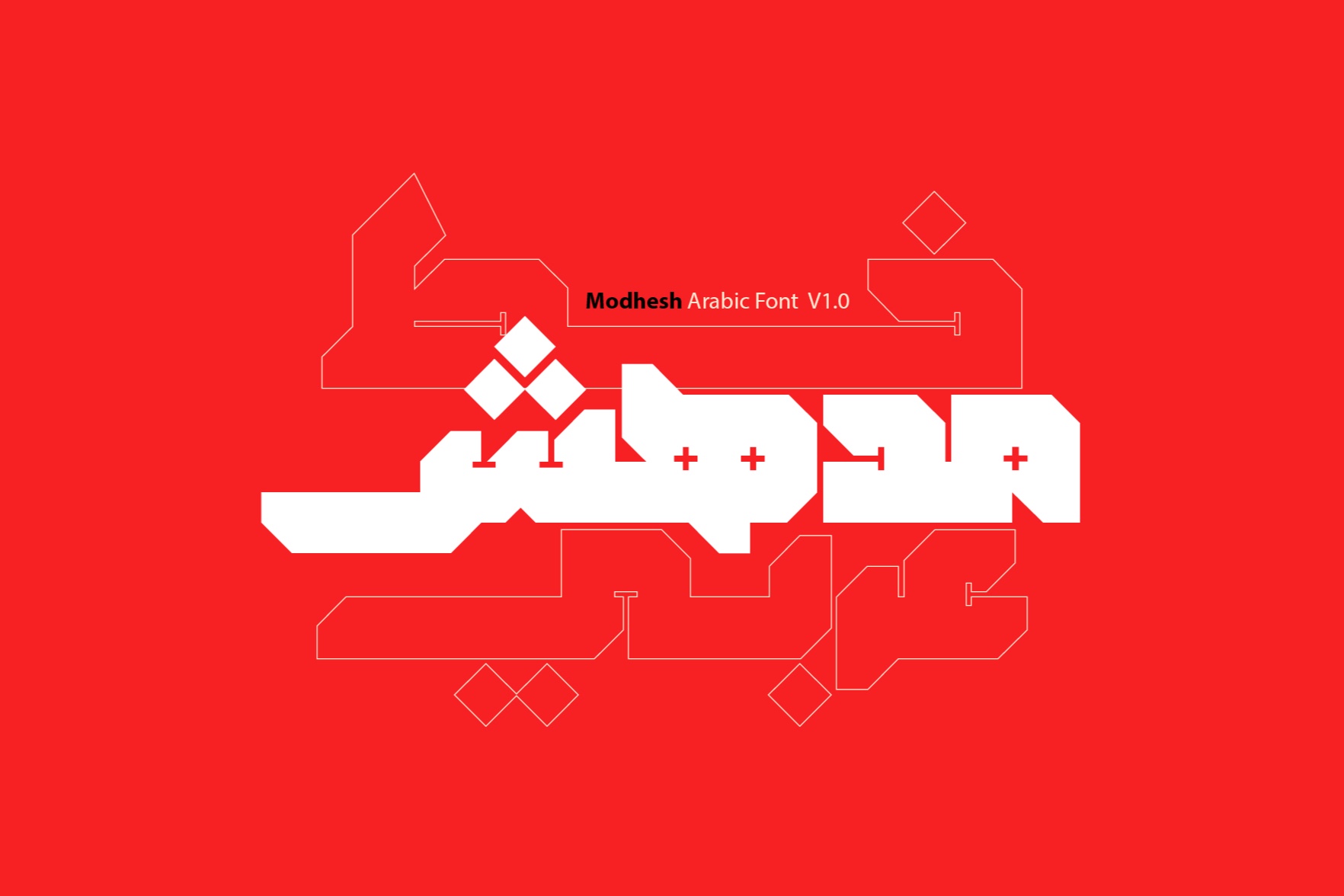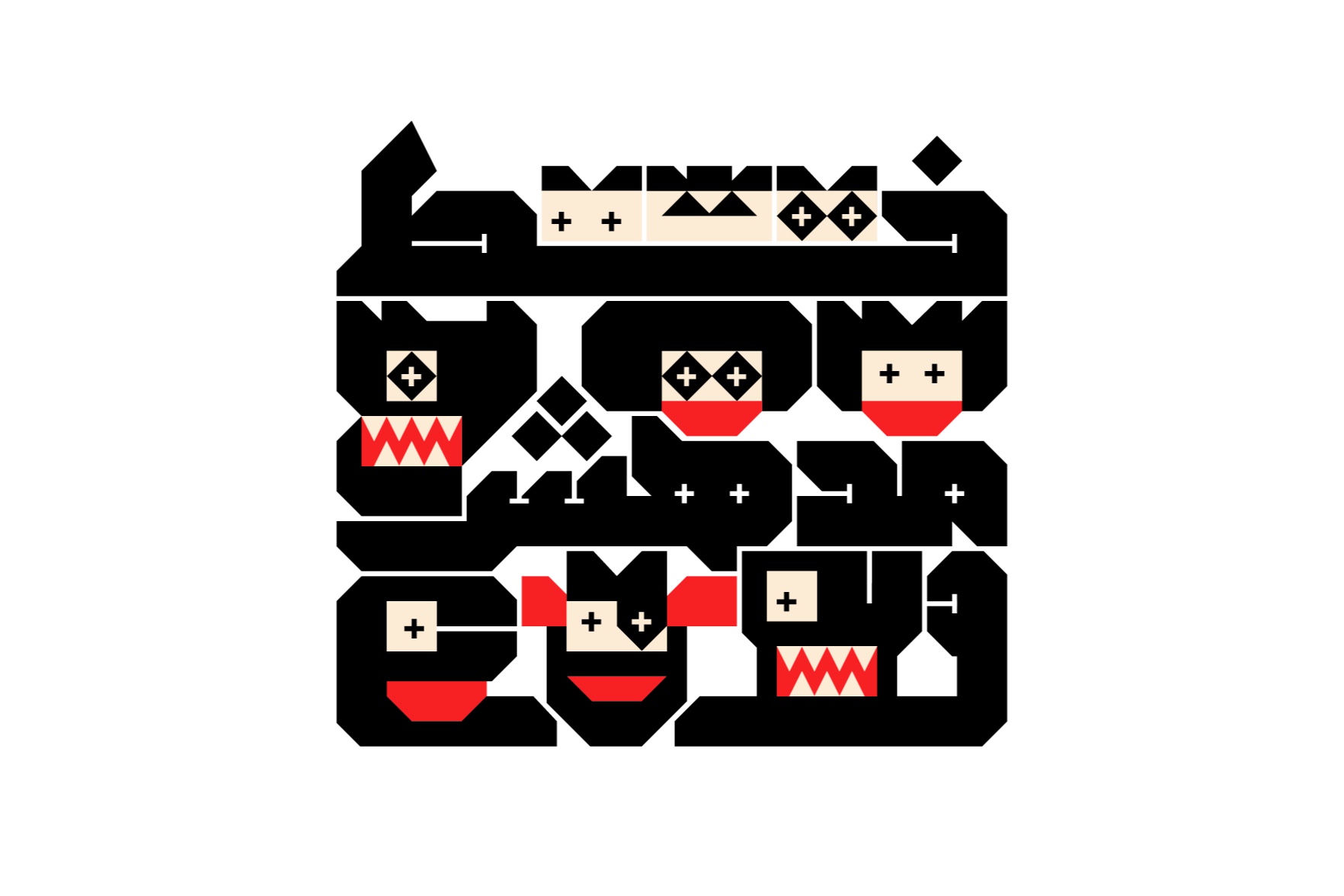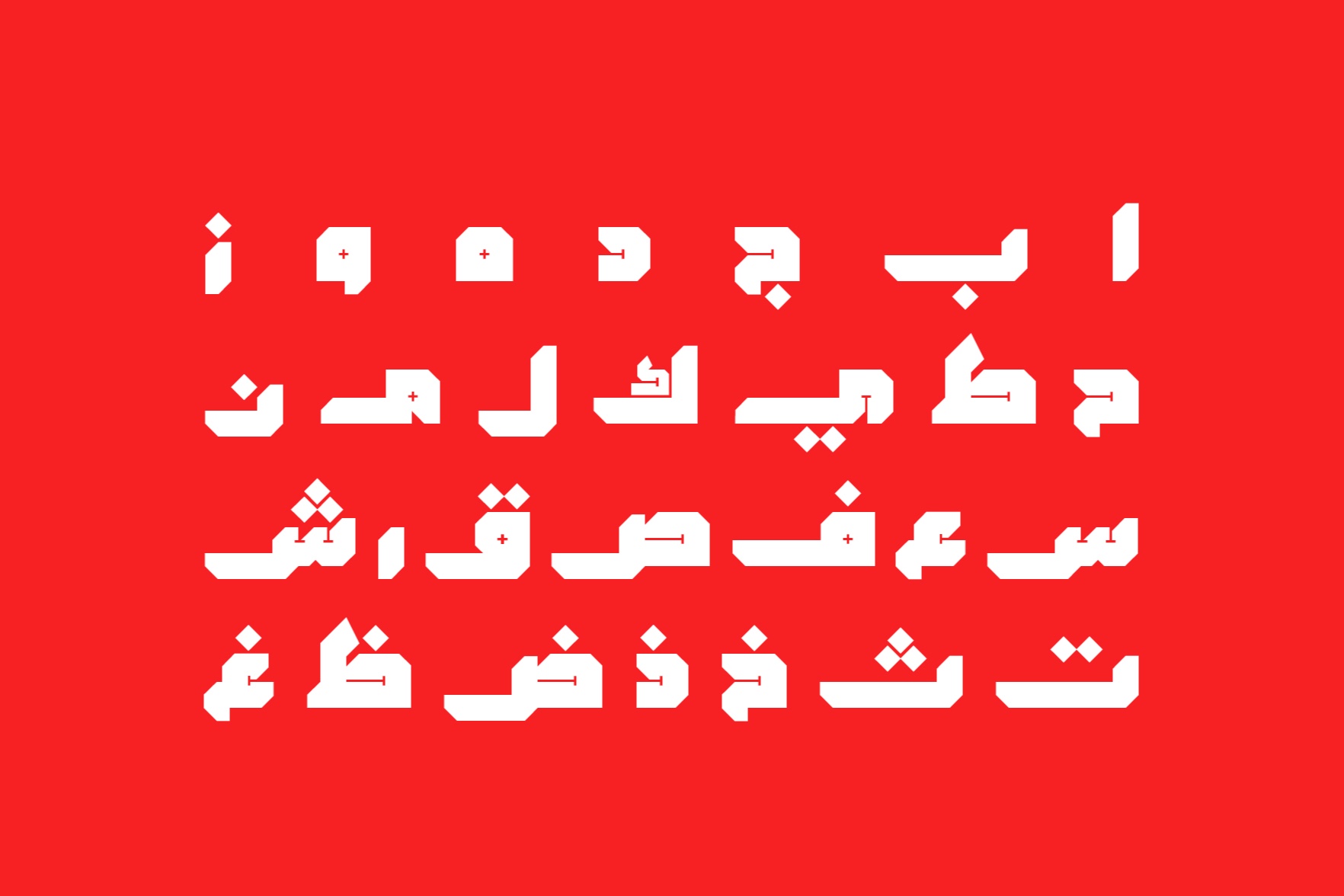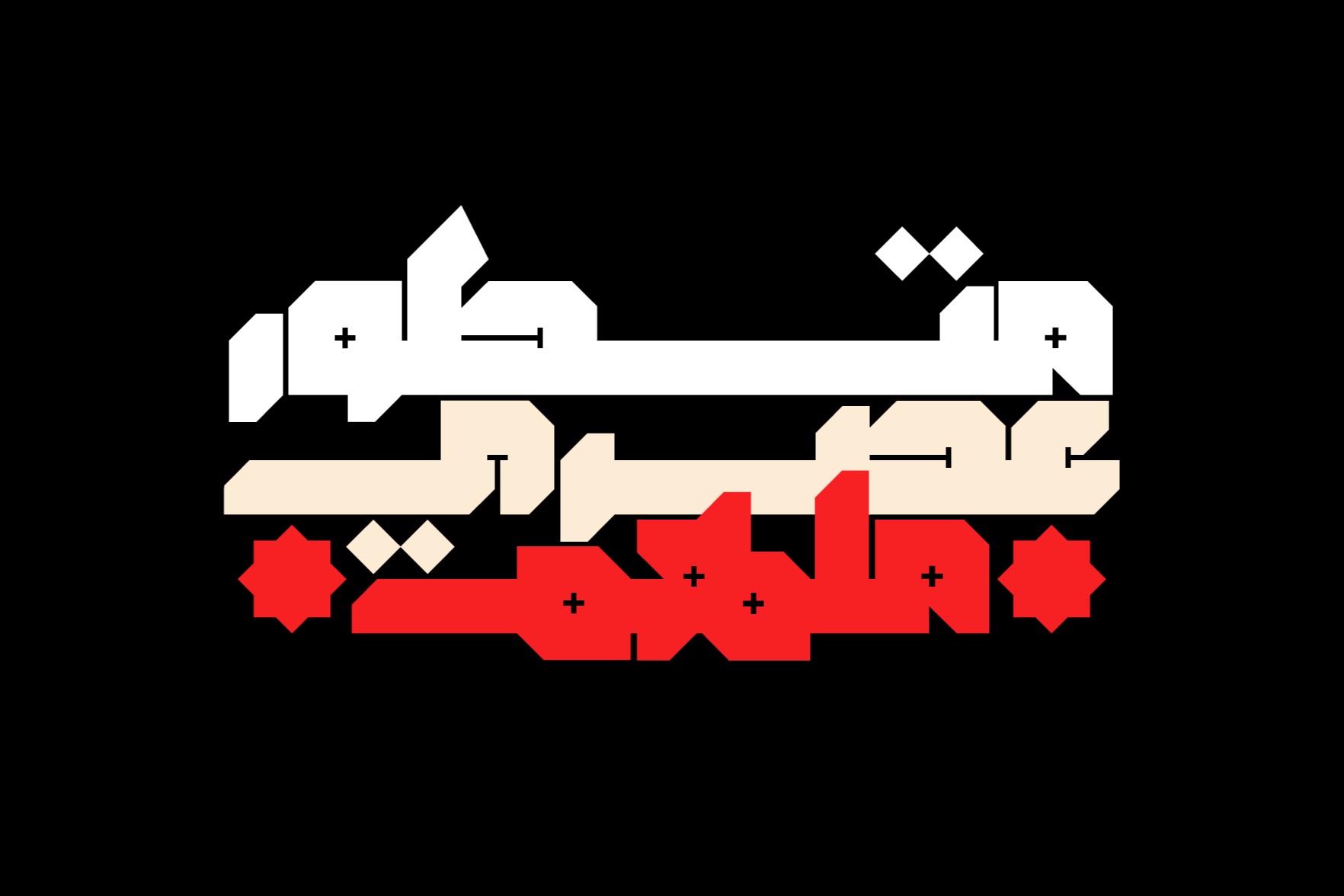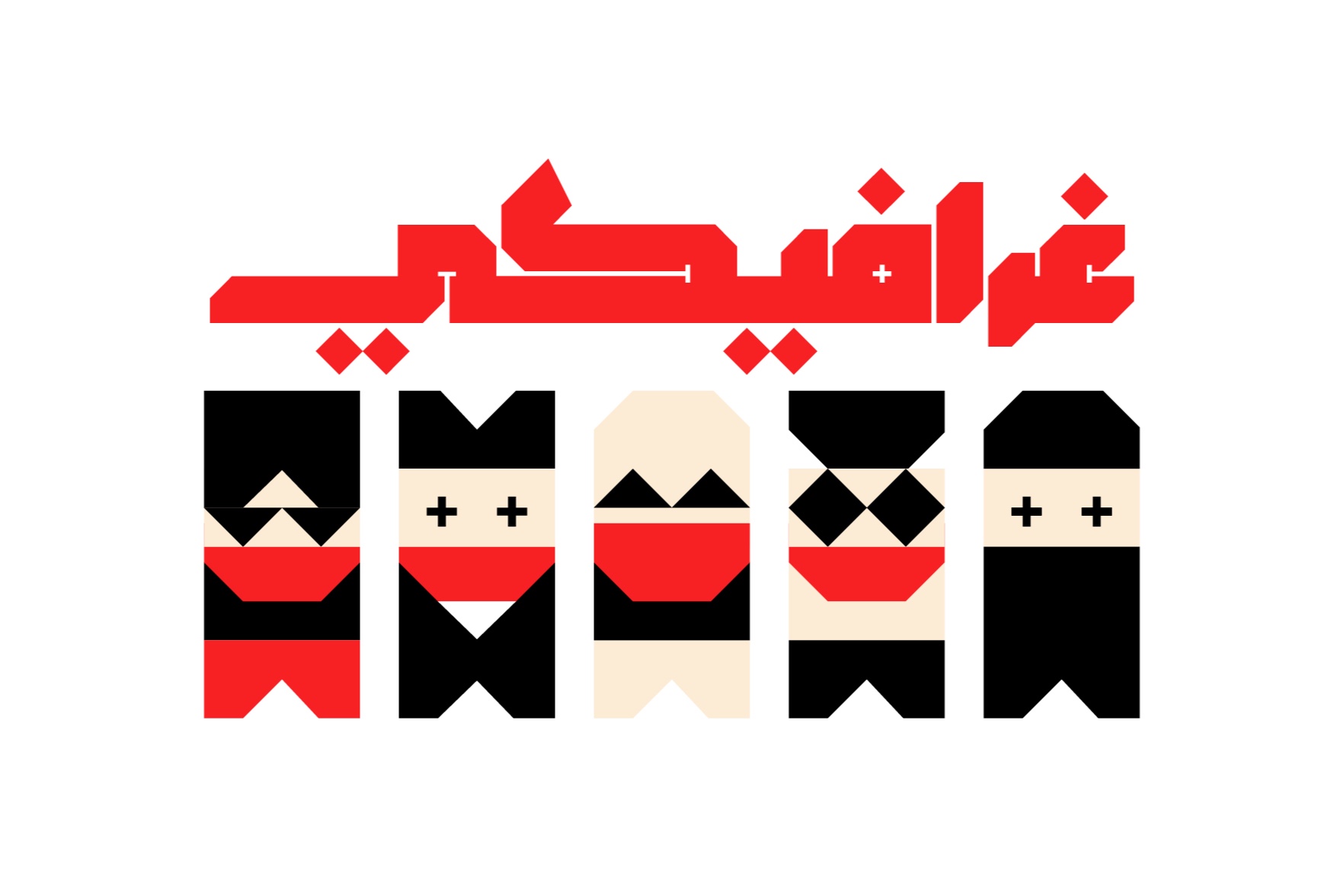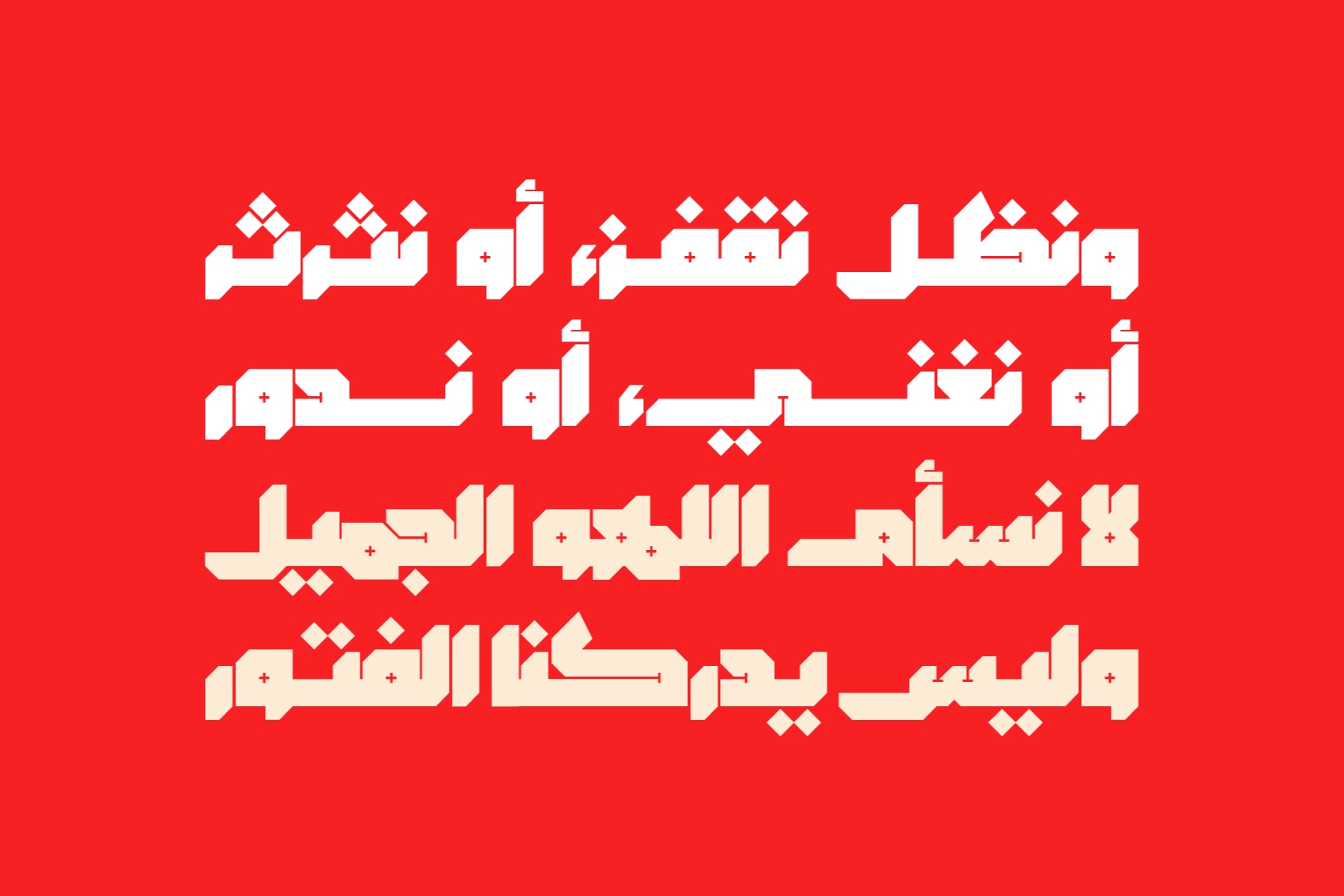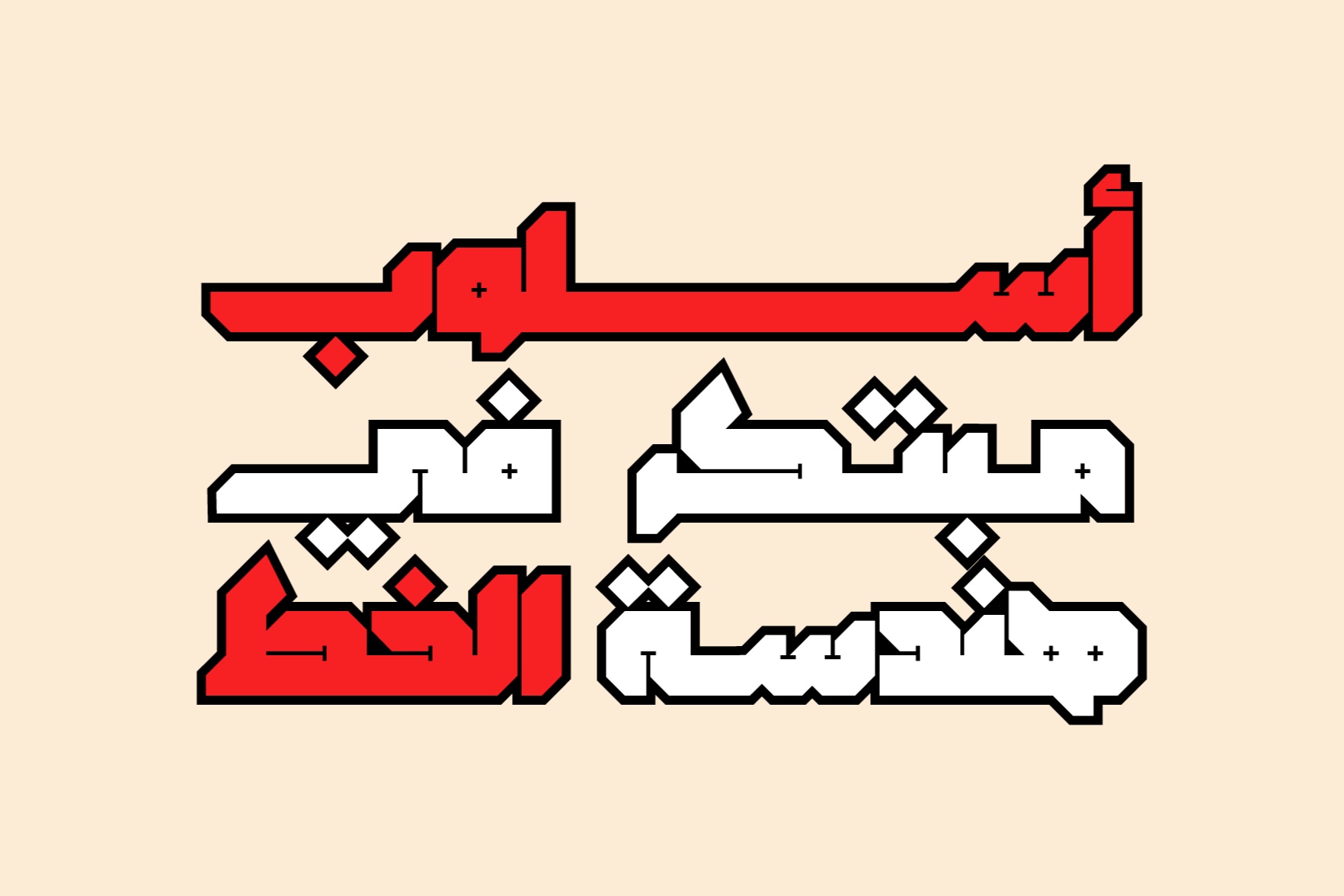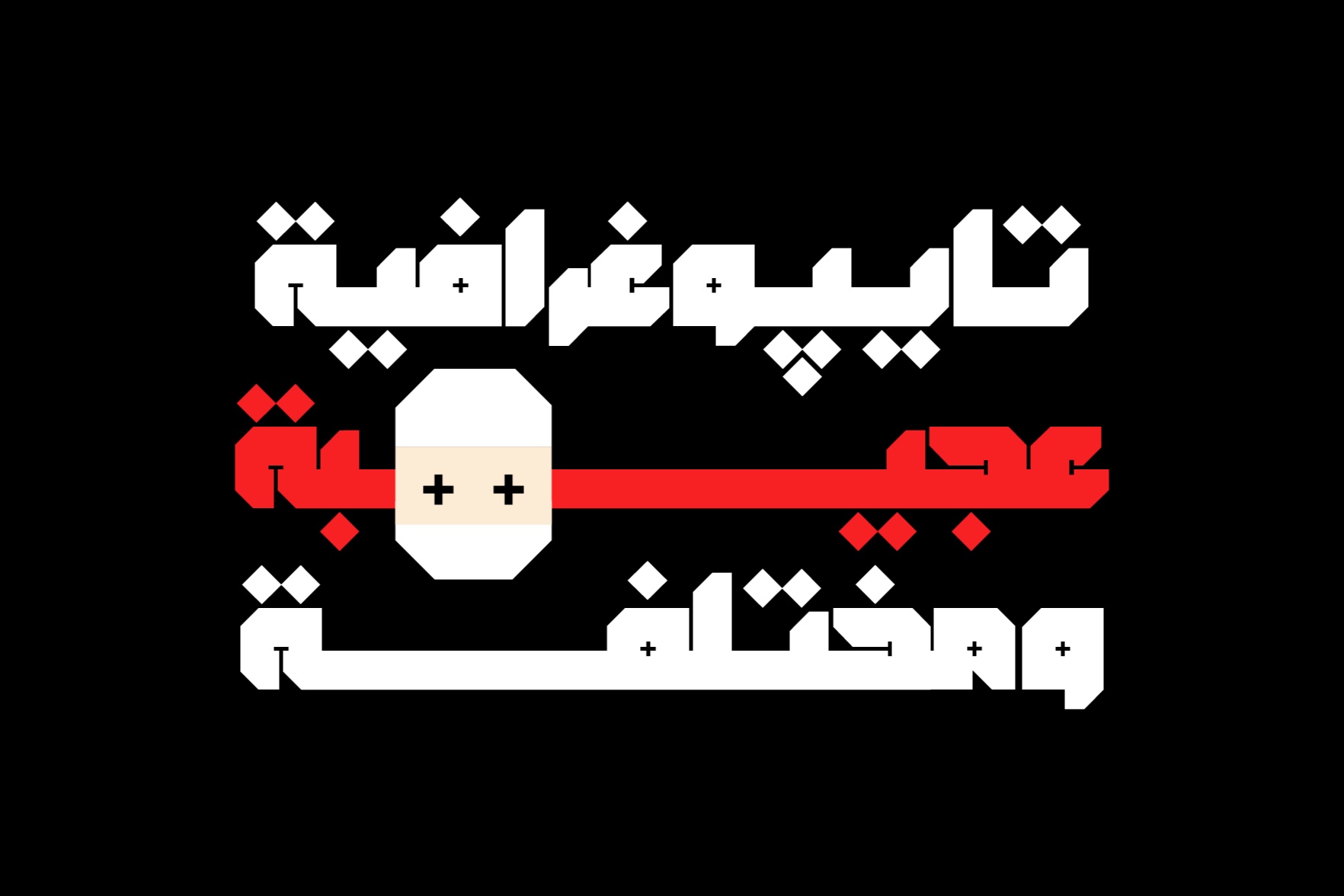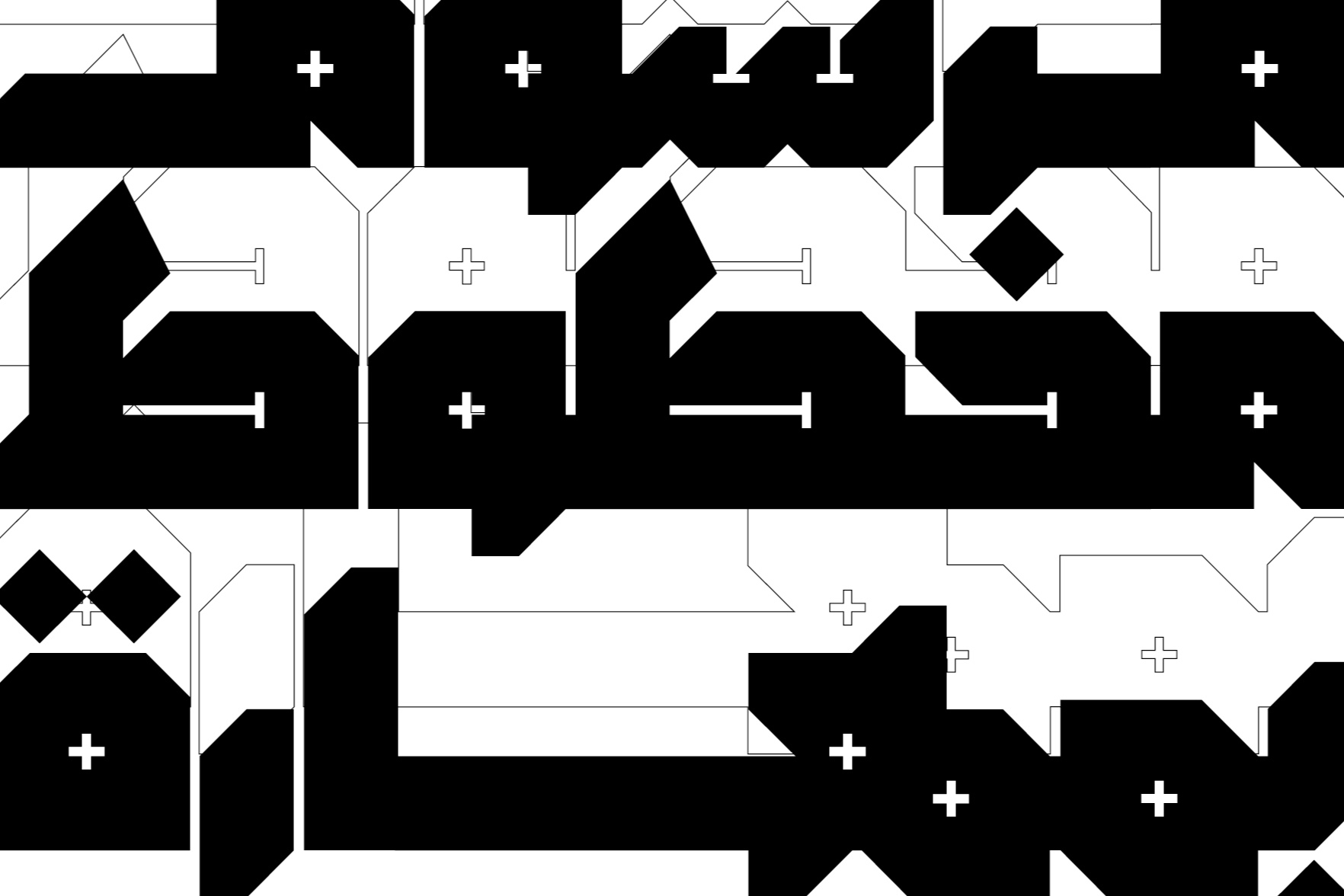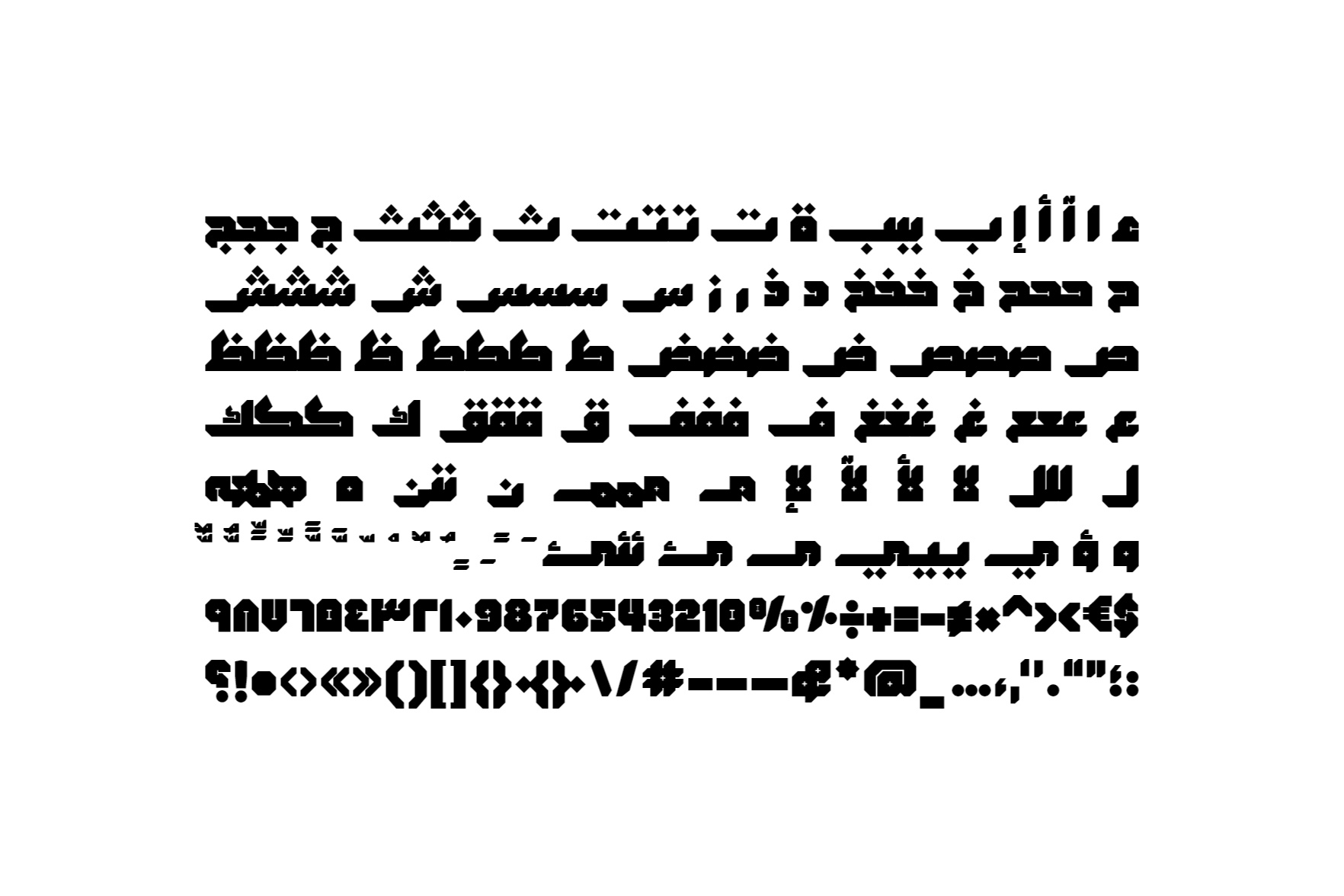
Modhesh - Arabic Font
Modhesh (Arabic for “Astonishing”) is an Arabic display font characterized by an unconventional letterform style and a very heavy weight. It is designed primarily for large formats, making it ideal for striking headings rather than extended body text. With its bold typographic presence, Modhesh is a perfect match for contemporary designs, seamlessly complementing geometric illustrations. The font is highly versatile and can be effectively used in web design, print media, UI/UX, and mobile applications.